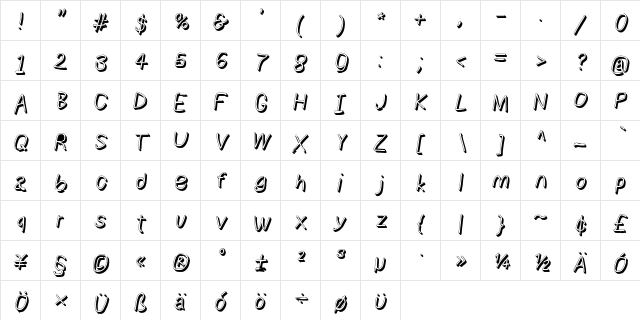
NumbBunny ShDIta
Design Context for NumbBunny Typeface
NumbBunny is a composed and adaptable typeface that performs quietly and consistently across a wide range of design contexts.